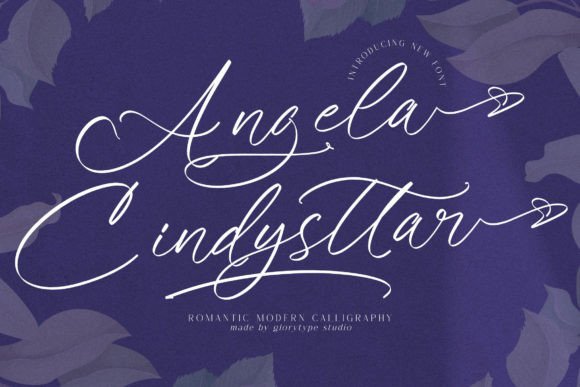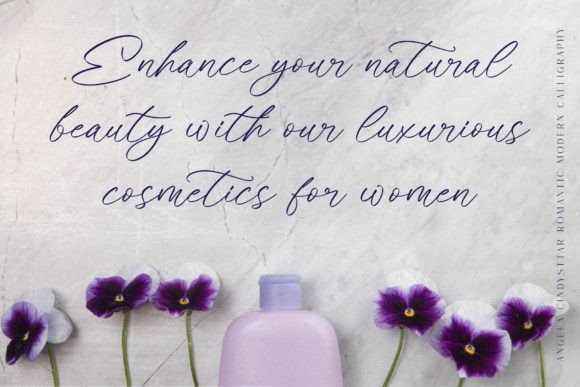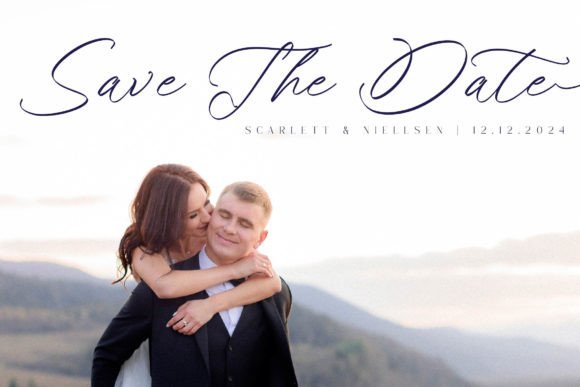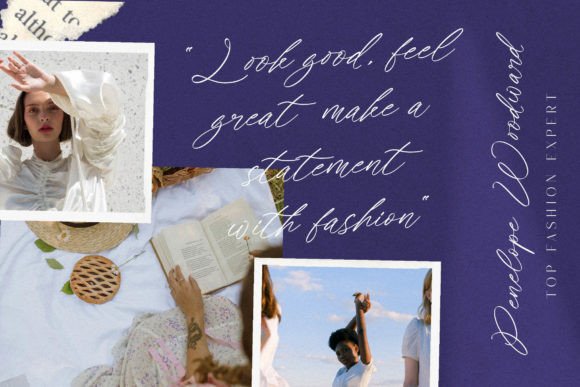
Angela Cindysttar Font: Elegant Calligraphy for Wedding & Branding
About the Angela Cindysttar Font
Discover the charm of Angela Cindysttar Font. This font is a perfect blend of modern aesthetics and classic appeal. Angela Cindysttar is an exquisite handwritten font, masterfully designed to become a true favorite. It maintains its classy calligraphic influences while feeling contemporary and fresh. Fall in love with it and bring your projects to the highest levels!
Angela Cindysttar excels in applications requiring a touch of elegance and sophistication. It’s ideal for logos, short headlines, invitations, and packaging design where its calligraphic flair adds a premium feel. Avoid using it for large blocks of body text or UI elements; its handcrafted nature can hinder readability in extended passages.
This font’s personality is best described as elegant yet approachable. Its refined curves convey sophistication, while its slightly informal character prevents it from feeling overly stiff.
Angela Cindysttar Font Usage Examples
Angela Cindysttar Font Example